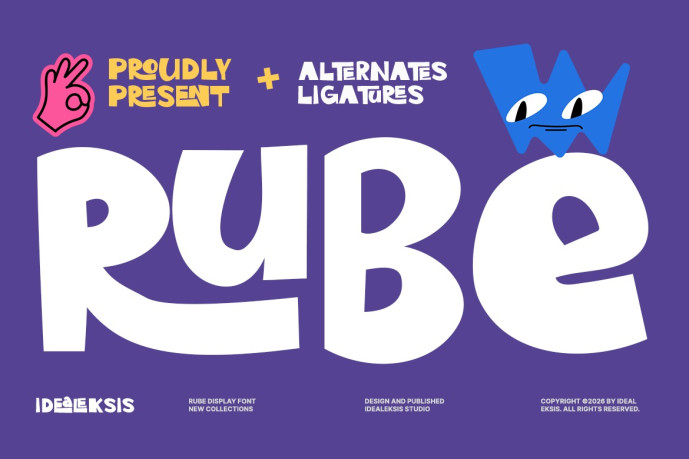
Rube Font
Designer: Idealx
Rube Font is a bold and whimsical display typeface with large, geometric letters and playful variants. Its robust block structure is softened by quirky ligatures and fun character details, giving the typeface a lively, cartoonish personality. The design balances impact and humor, making it perfect for creative brands, posters, and projects that want to stand out with boldness and charm.